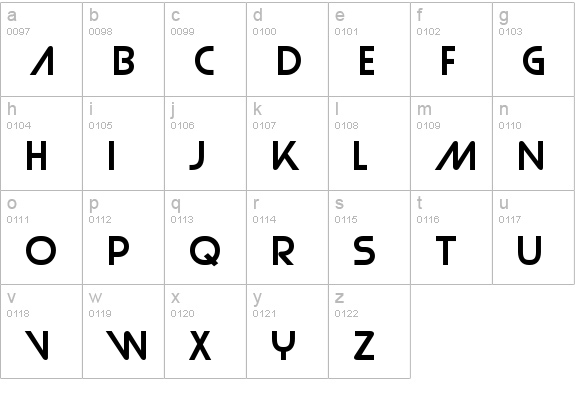
Introducing Strasua, a modern and stylish font that is sure to elevate your design projects to the next level. With its sleek lines and elegant curves, Strasua is the perfect choice for adding a touch of sophistication to any project. This versatile font is ideal for a wide range of designs, from logos and branding to websites and social media graphics. What makes Strasua even more appealing is that it is available for free download at FontsMarket.com. Yes, you read that right - this stunning font can be yours at no cost, making it the perfect choice for budget-conscious designers looking to make a big impact. Don't miss out on the opportunity to enhance your projects with the beauty and elegance of Strasua font - download it today and let your creativity shine!